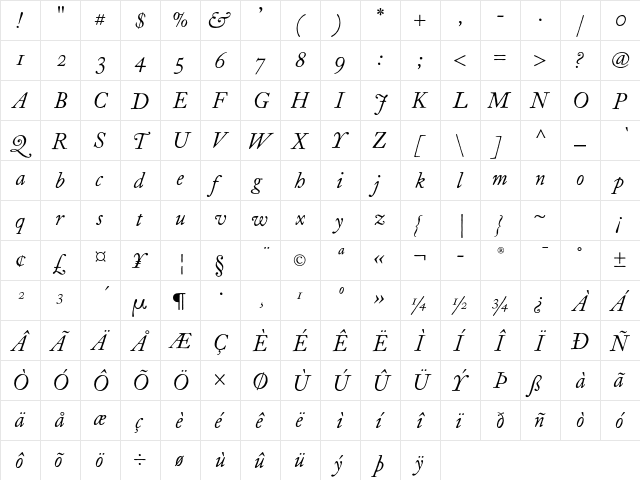
FCaslon Twelve ITC Std Italic
| Designer | Justin Howes |
FCaslon Twelve ITC Std is a composed and adaptable typeface that performs quietly and consistently across a wide range of design contexts. The dynamic lean of this cut emphasises speed and emphasis in any layout.
Pro Tip: Try FCaslon Twelve ITC Std for annotation and caption copy alongside an upright companion — the contrast in angle creates a dynamic but ordered typographic system.